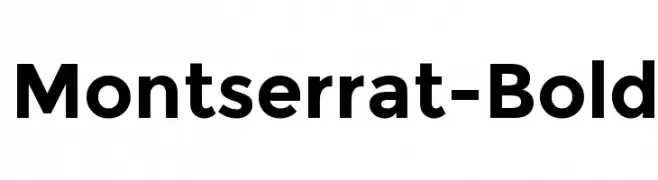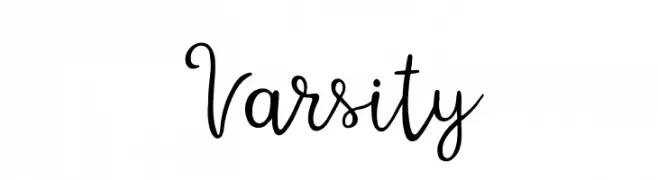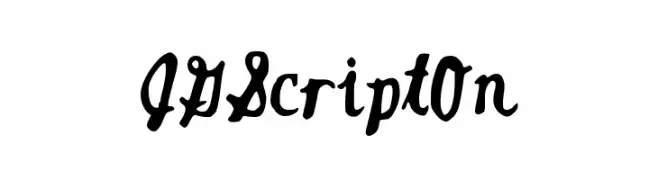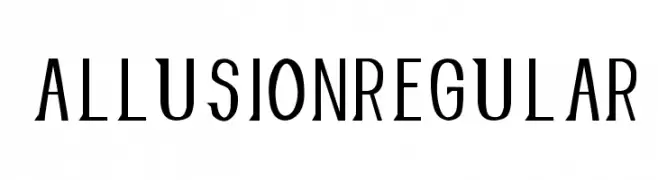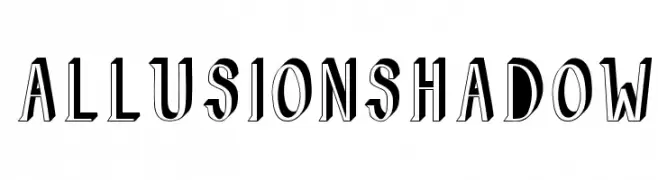
( Julieta Ulanovsky - twitter.com/julietulanovsky )
A modern, geometric sans-serif font with a clean and professional look.
( Julieta Ulanovsky - twitter.com/julietulanovsky )
A bold, modern sans-serif font with clean lines and excellent readability.
( Julia Koschler - juliakoschler-shop.jimdo.com/ )
A playful and elegant script font with smooth, flowing lines and a cursive style.
( Julia Guinto )
A bold, expressive script font with fluid, cursive strokes and decorative flourishes.
( Julia Guinto )
A modern serif font with tall, narrow letterforms and subtle serifs.
( Julia Guinto )
A bold, shadowed font with a vintage, three-dimensional style.
( Julia Guinto )
A bold, shadowed font with a vintage, three-dimensional look.
( Julia Guinto )
A modern, outlined font with geometric shapes and high legibility.
( Julia Guinto )
A modern, elegant sans-serif font with tall, condensed characters and consistent stroke width.
( Julia Guinto )
A modern outlined font with geometric, bold uppercase letters.